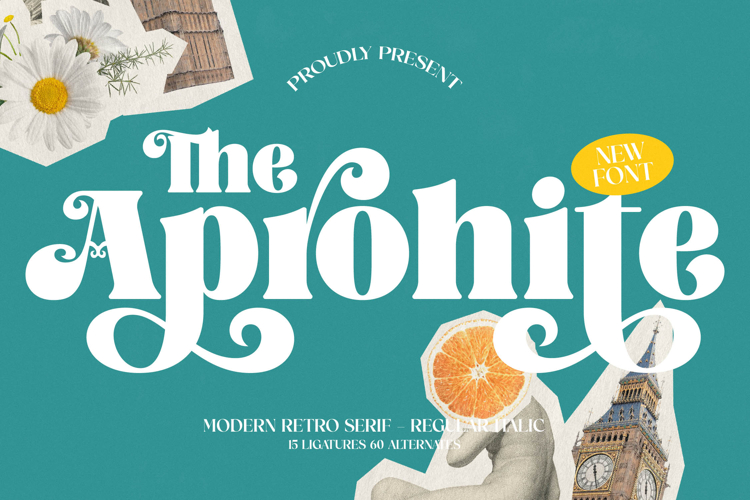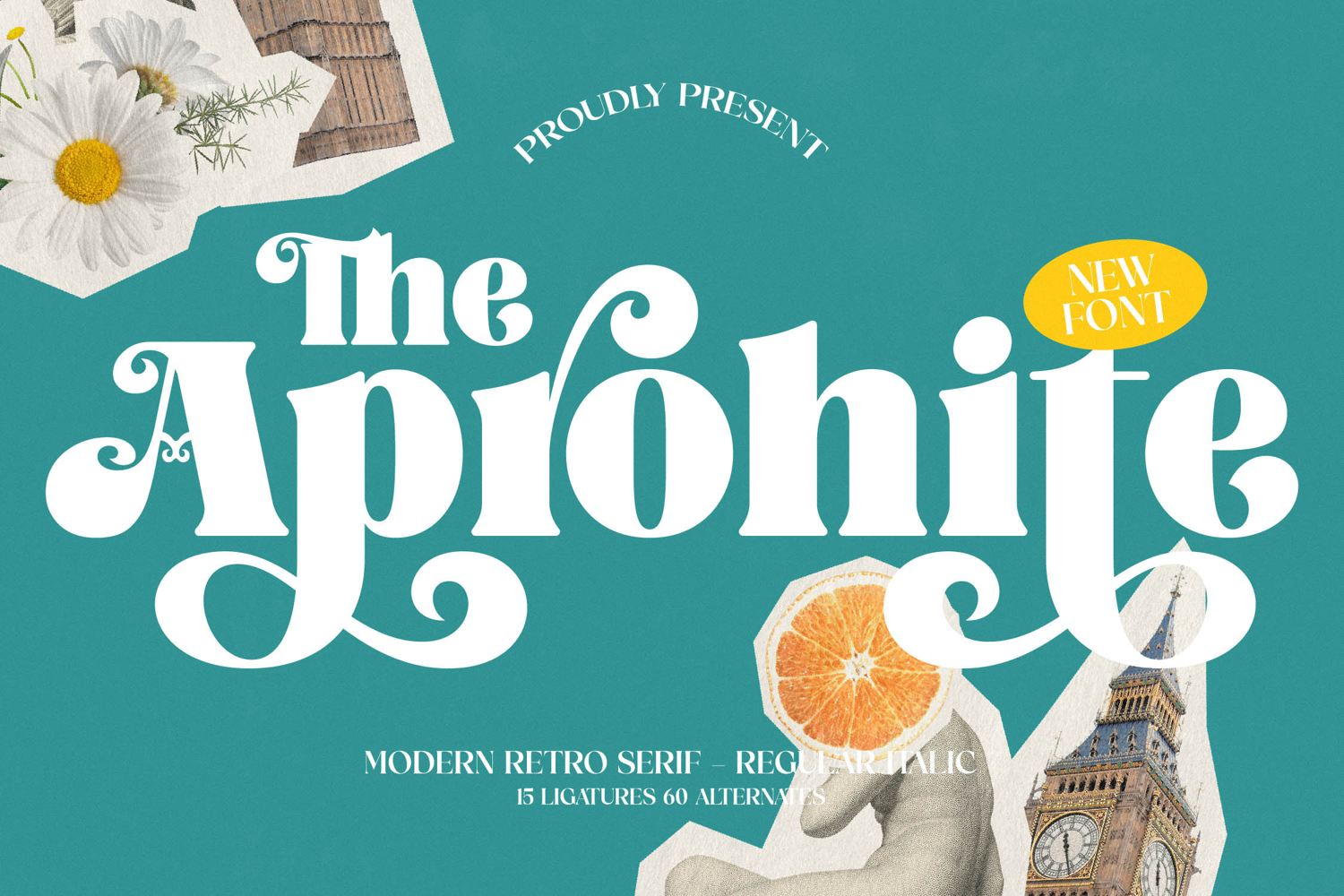
Aprohite - Modern Retro Serif Font
Unlock a world of sophisticated retro charm with Font Aprohite - Modern Retro Serif Font Groovy. This captivating typeface masterfully blends timeless elegance with a playful, contemporary edge, making it an instant classic for distinction. Its bold, high-contrast letterforms and inviting curves create an undeniable visual presence, evoking a nostalgic yet fresh aesthetic that commands attention. Ideal for conveying both heritage and innovation, Font Aprohite - Modern Retro Serif Font Groovy elevates your design projects.
Experience unparalleled design flexibility with the meticulous craftsmanship of Font Aprohite - Modern Retro Serif Font Groovy. Crafted for impact and versatility, this exquisite serif font features a generous suite of alternates and ligatures, empowering designers to infuse each character with unique personality and fluid connection. From intricate logotypes to expansive editorial layouts, its inherent elegance ensures readability while offering dynamic creative possibilities for a polished, memorable touch.